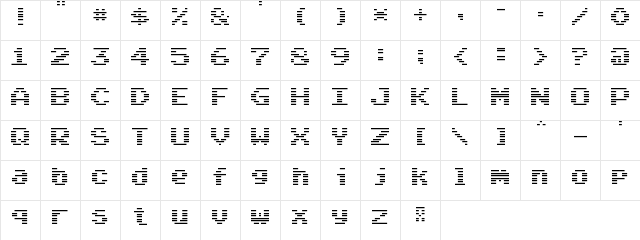
Arcade Classic Regular Free Font
Arcade Classic Regular
Designer: K.Hachmang
Design Context for Arcade Classic
Arcade Classic wears its vintage influences proudly, with letterforms that recall mid-century signage, classic packaging, and nostalgia-driven design.
Font Pairing: Combine Arcade Classic with a simple slab or neutral sans - period-accurate companions reinforce the vintage feel without competing for attention.
Pro Tip: Lean into Arcade Classic's period character by pairing it with aged paper textures, muted colour palettes, and vintage illustration styles.